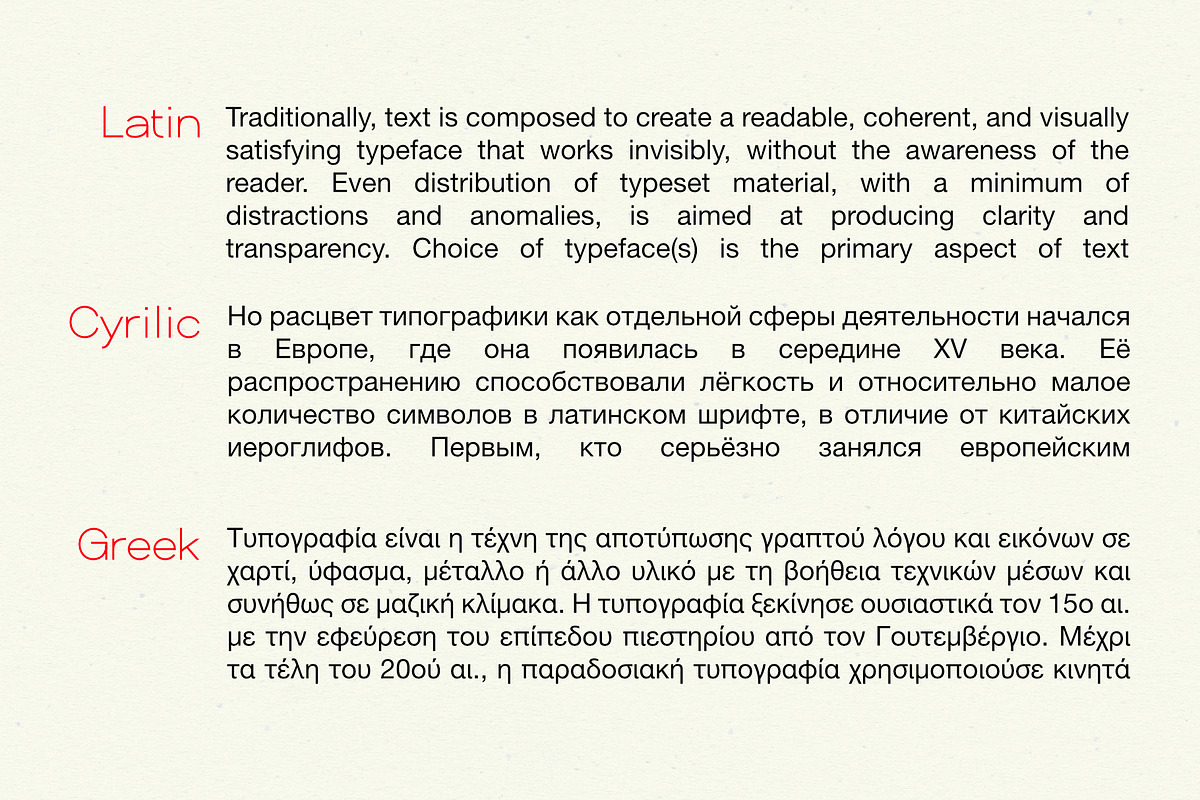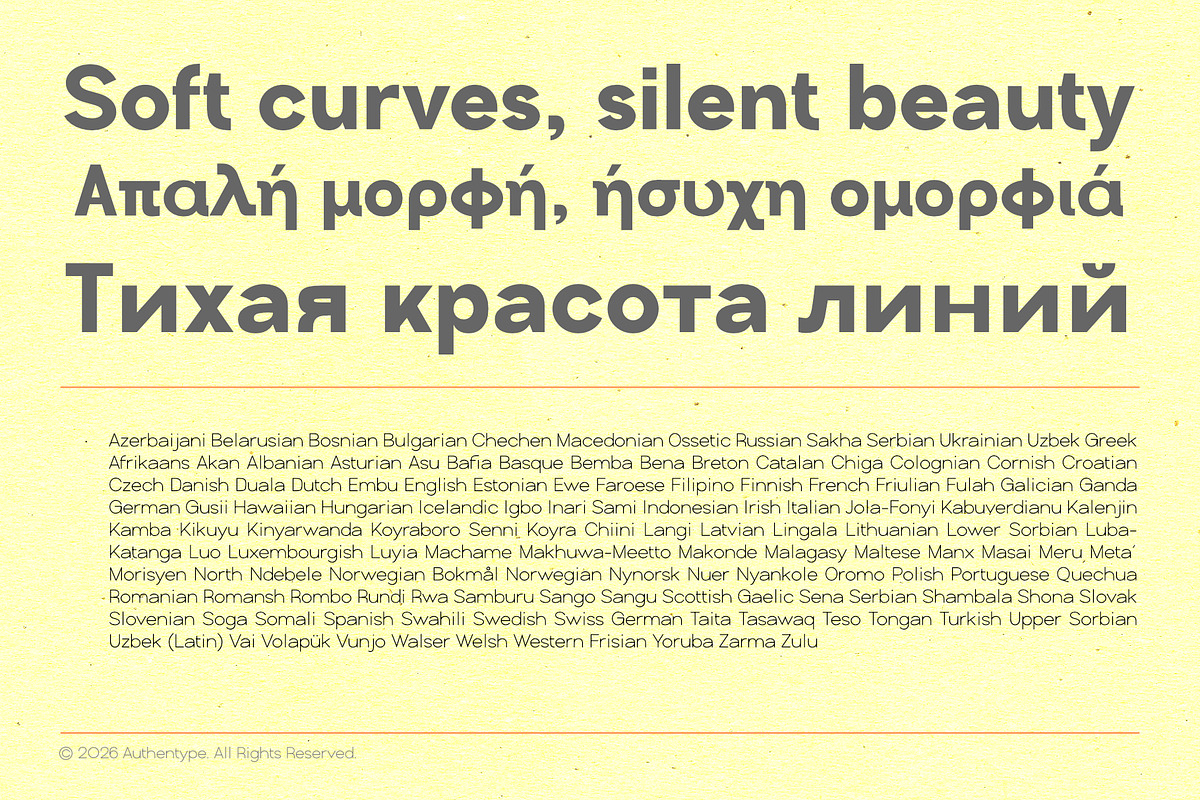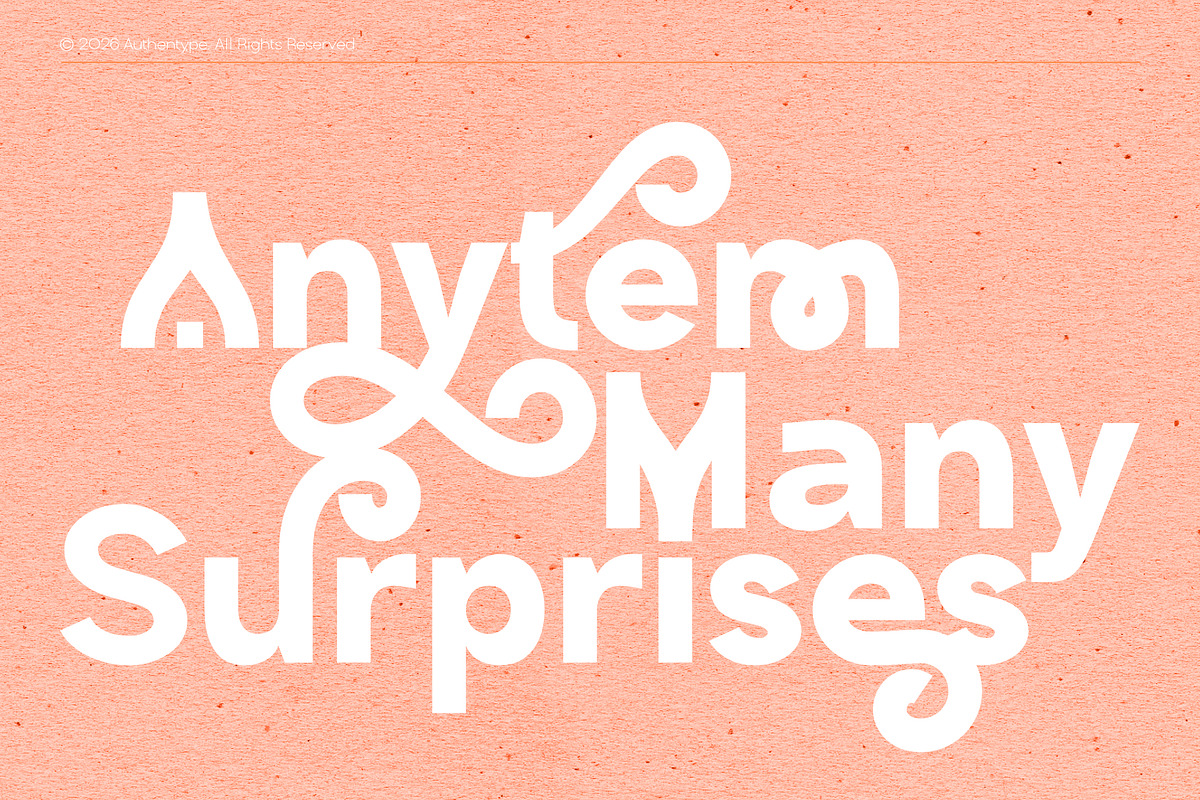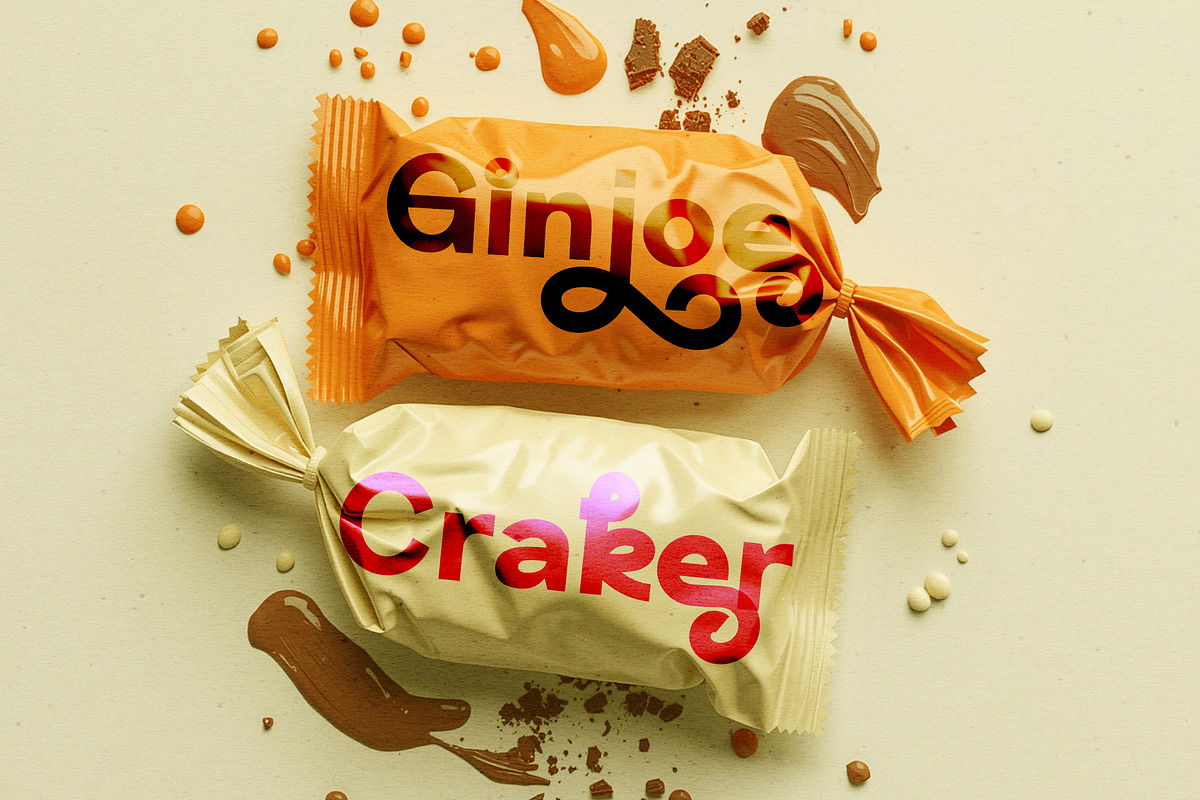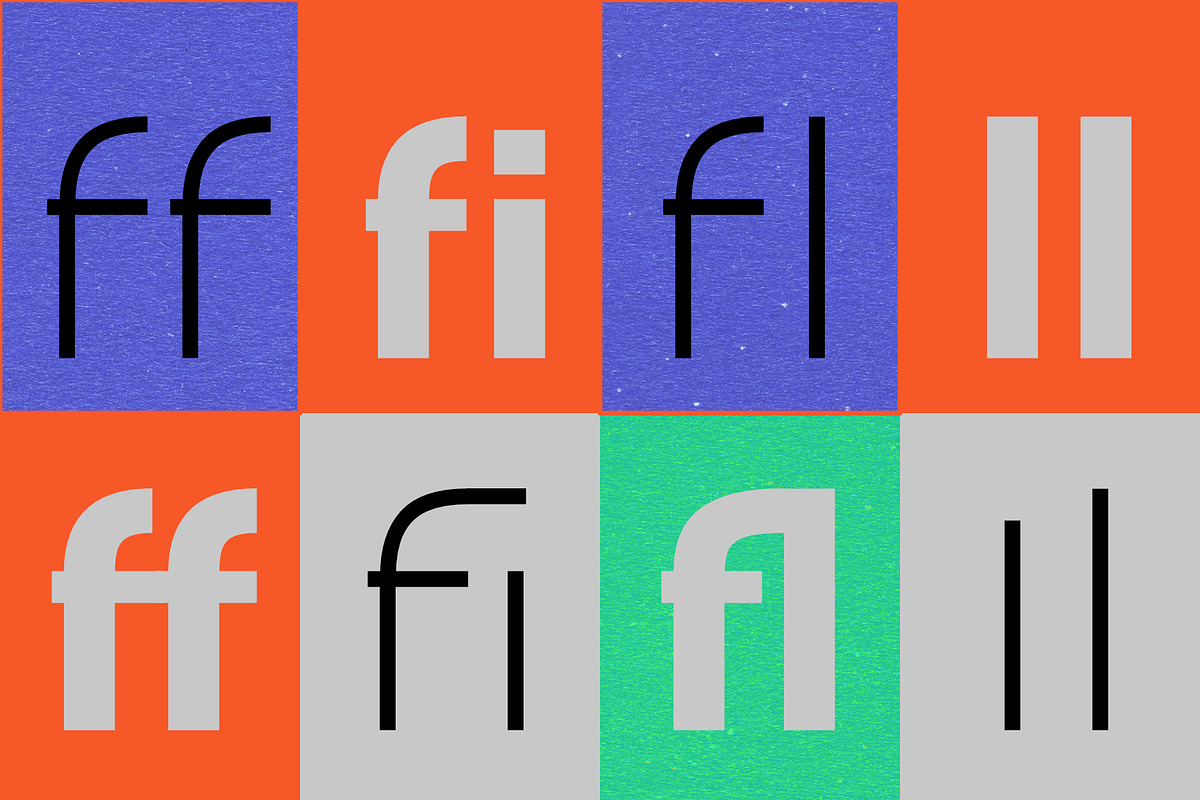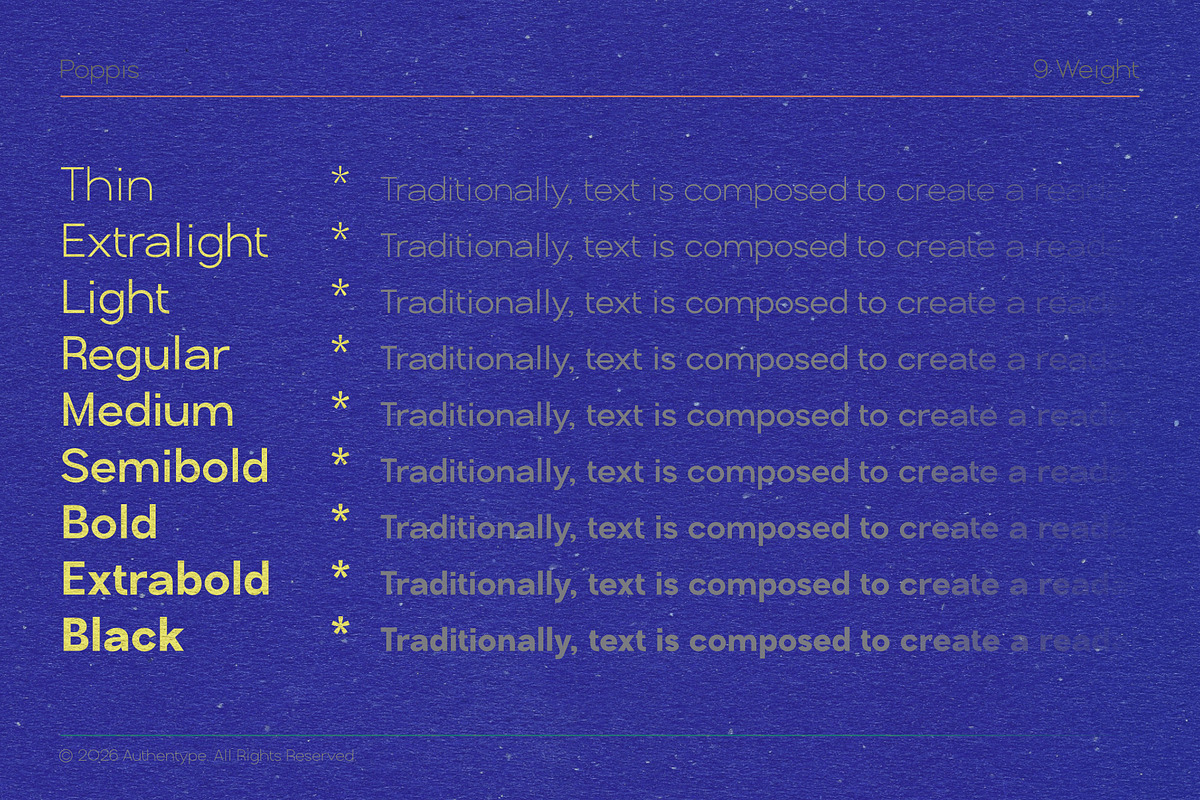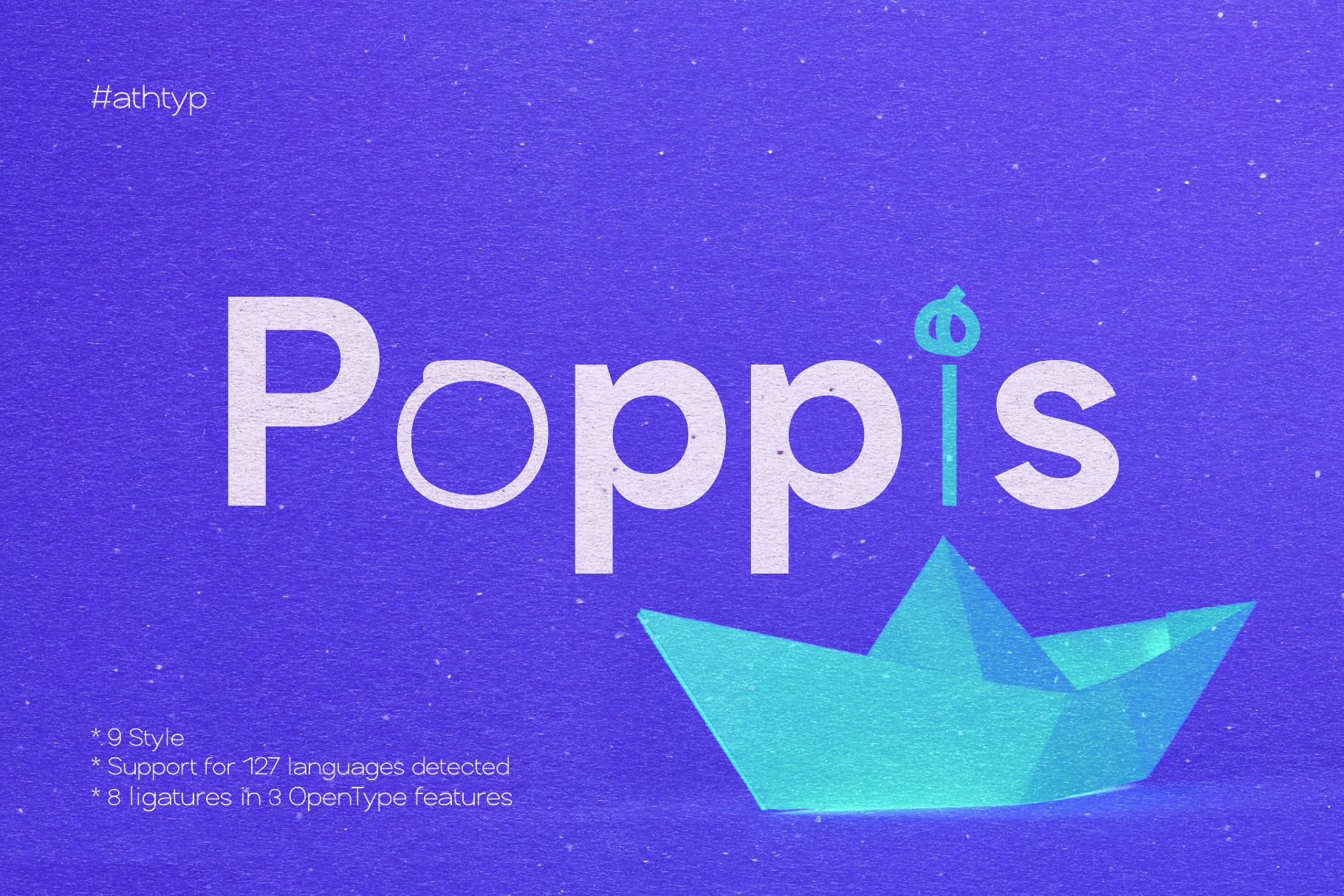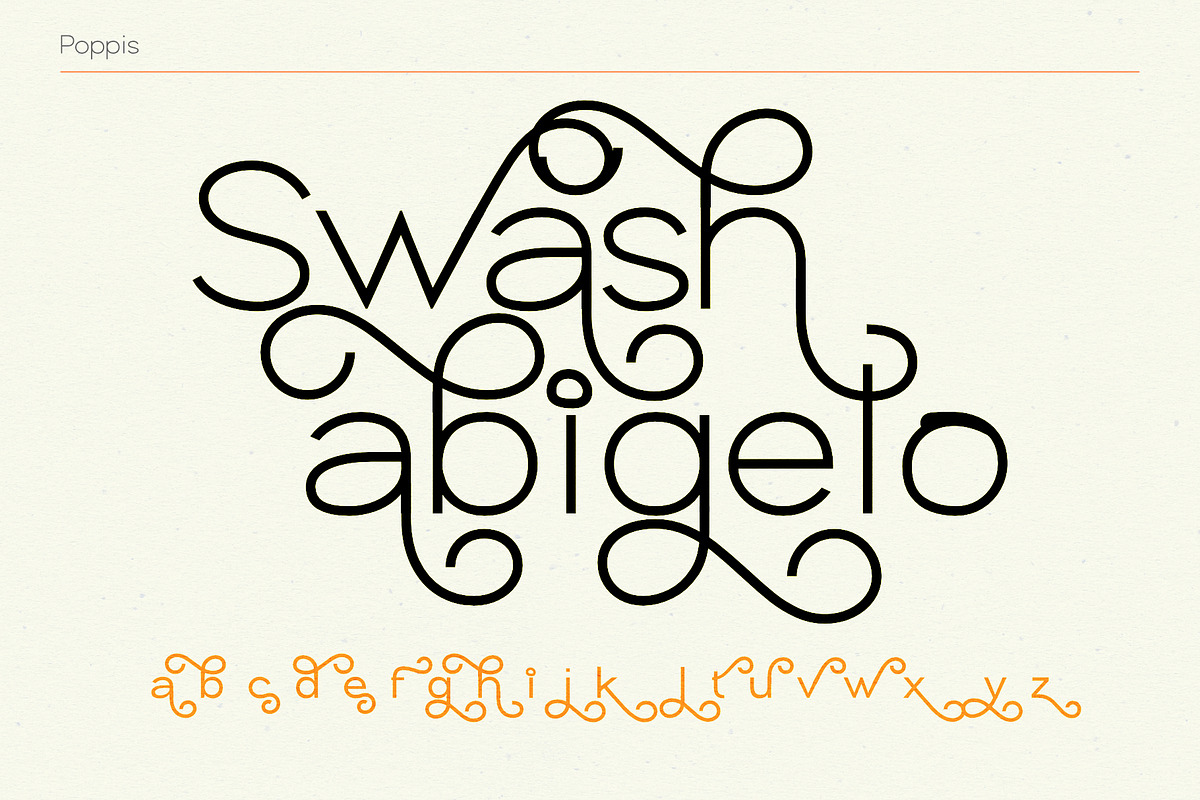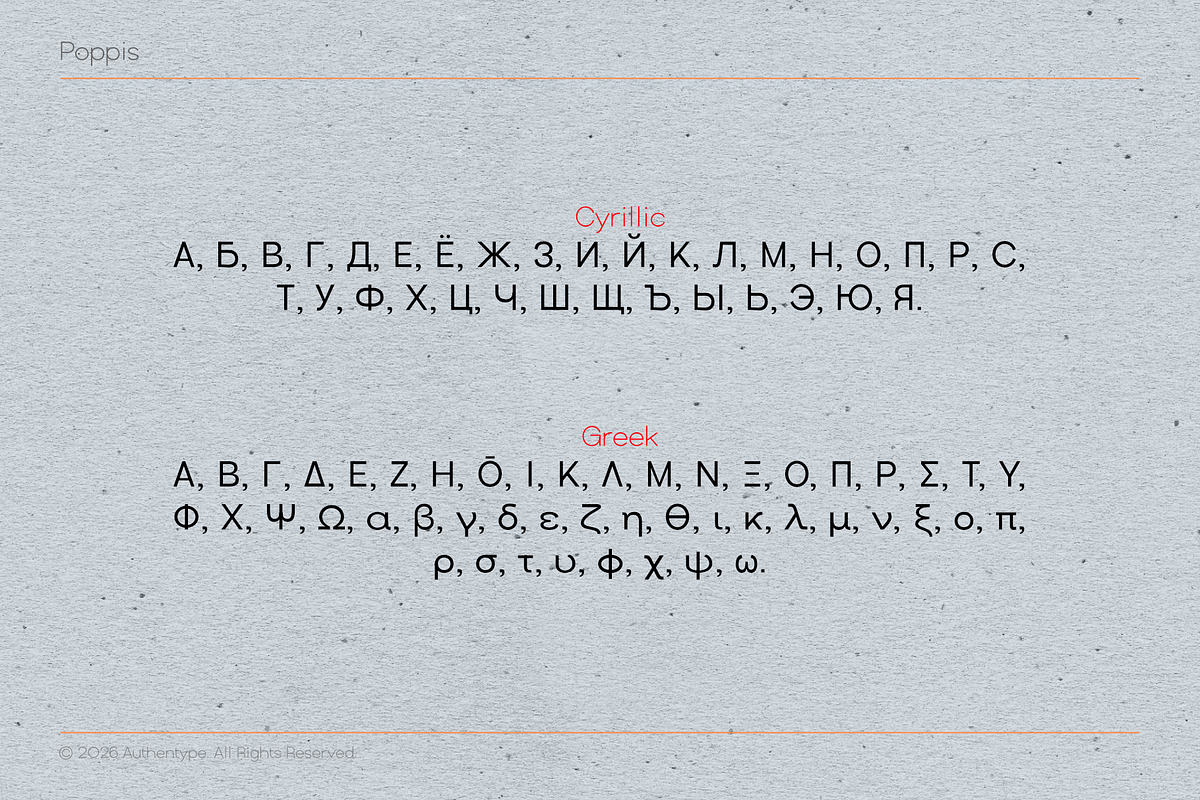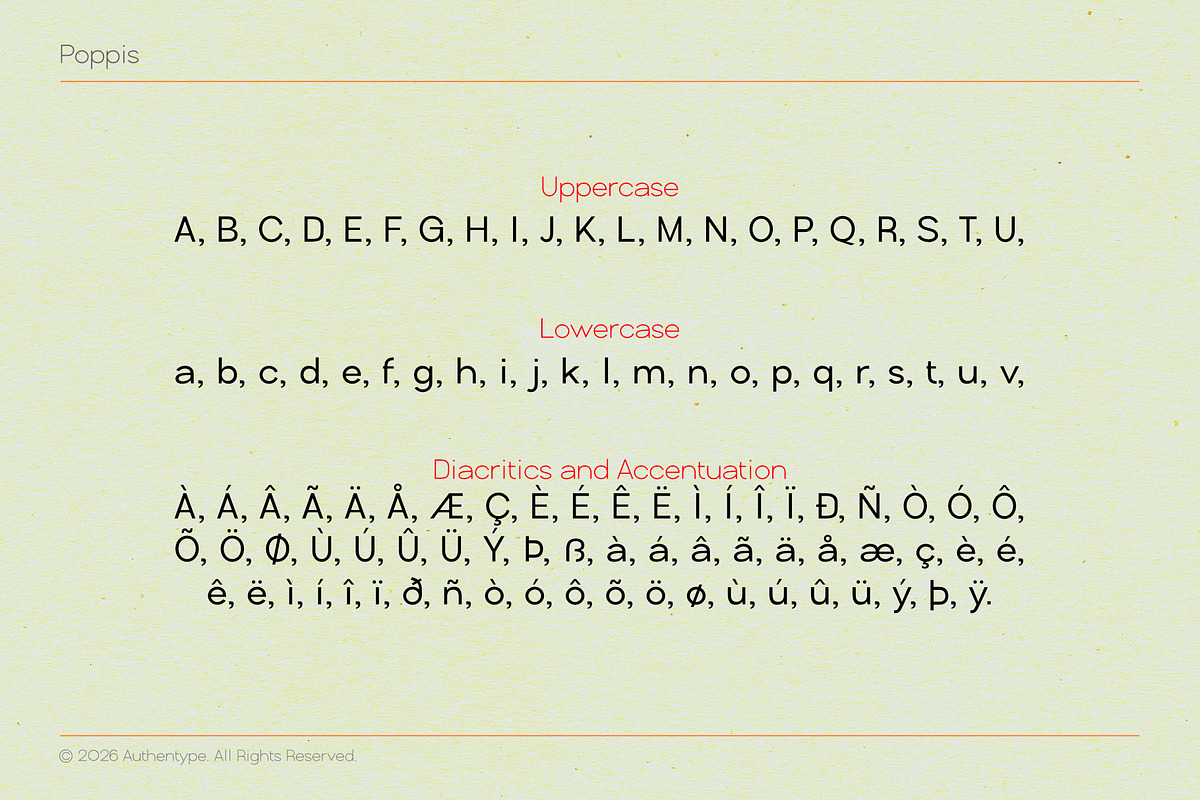
Poppis - Branding Logo Typeface
Poppis - Modern Geometric Branding Font & Logo Typeface
Stop struggling to find a typeface that feels both structured and playful. Meet Poppis, a modern geometric sans serif designed specifically to be your go-to branding font. Whether you are crafting a minimal visual identity or a complex corporate system, Poppis offers the perfect balance of Swiss-style cleanliness and contemporary charm.
Designers know that a great logo requires versatility. That is why Poppis comes packed with nine weight variations—from an airy Thin to a commanding Bold—allowing you to build a seamless hierarchy across websites, packaging, and print. Beyond just the letters, this font is a powerhouse for international projects, offering support for 127 languages, including full Cyrillic and Greek character sets.
Take your typography further with advanced OpenType features. With distinct stylistic sets and decorative swashes, you can instantly transform standard headlines into bespoke artwork. Plus, with a super-complete glyph set featuring ligatures, mathematical symbols, and modern currencies like Bitcoin, Poppis ensures your designs are future-proof.